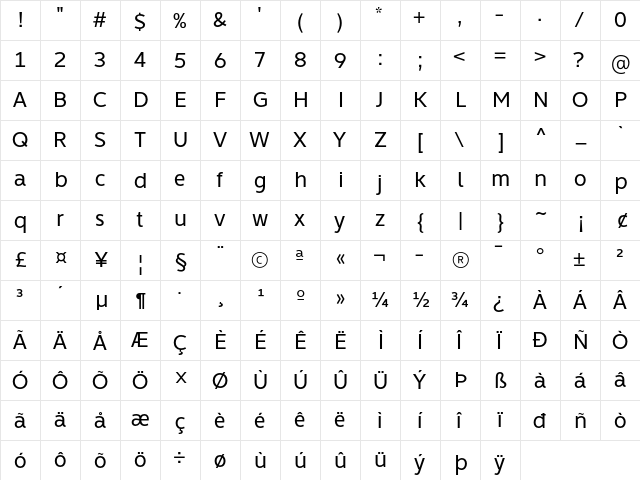
Learn Share Colaborate Regular
| Foundry | 7NTypes |
| Designer | Situjuh Nazara |
Design Context for Learn Share Colaborate Typeface
Learn Share Colaborate offers clean, dependable letterforms without strong stylistic allegiance, making it a practical choice for designers who need flexibility.